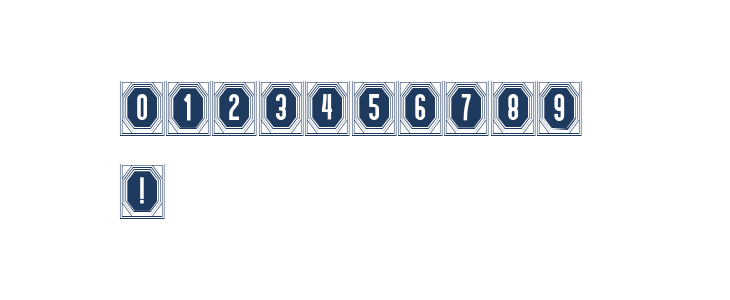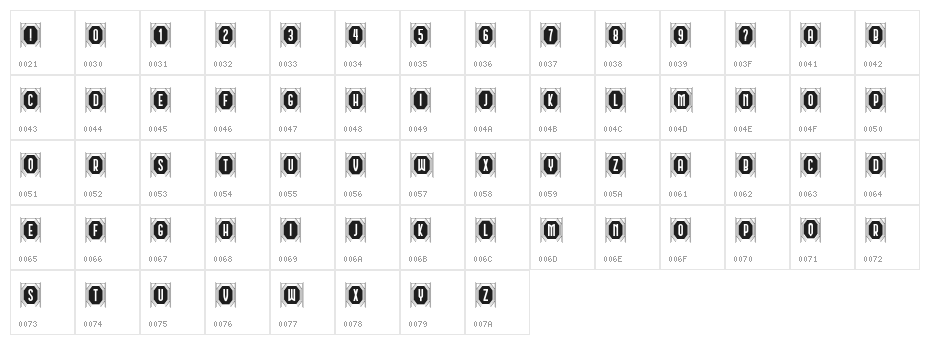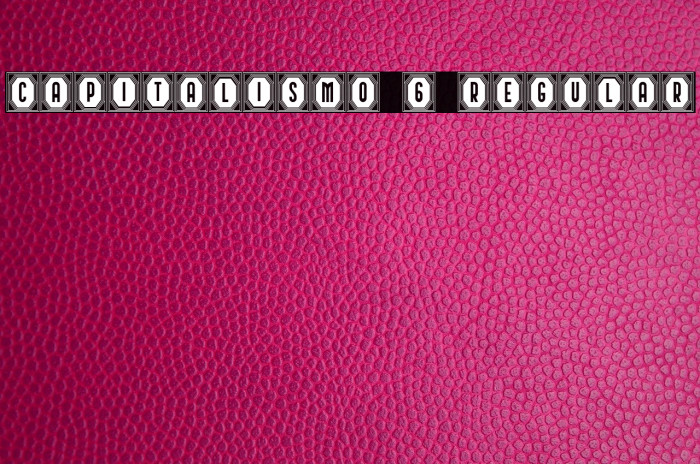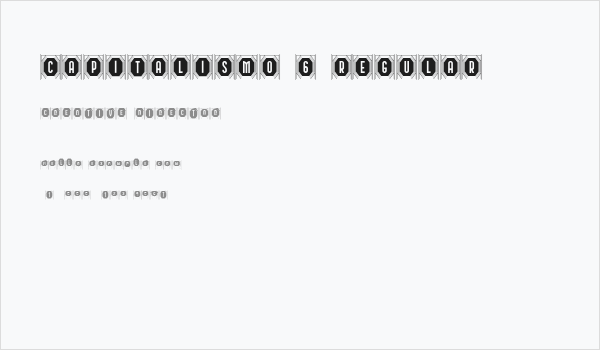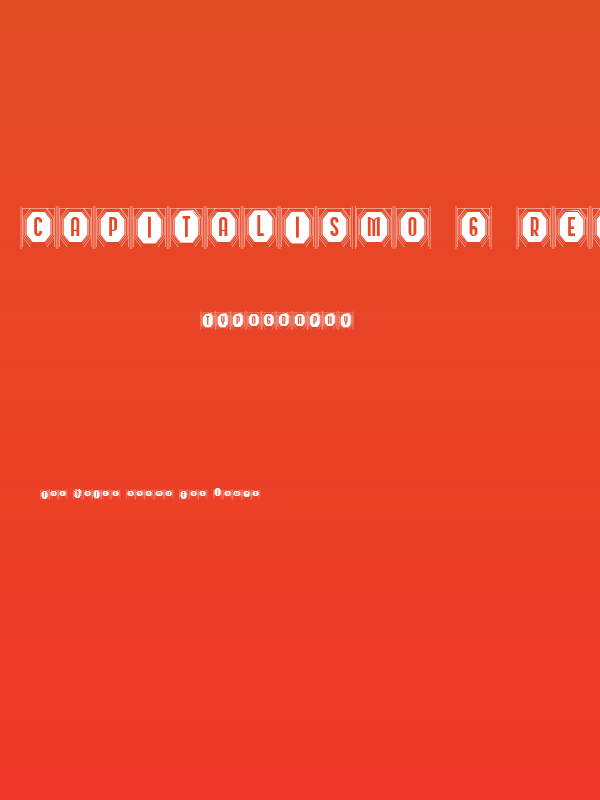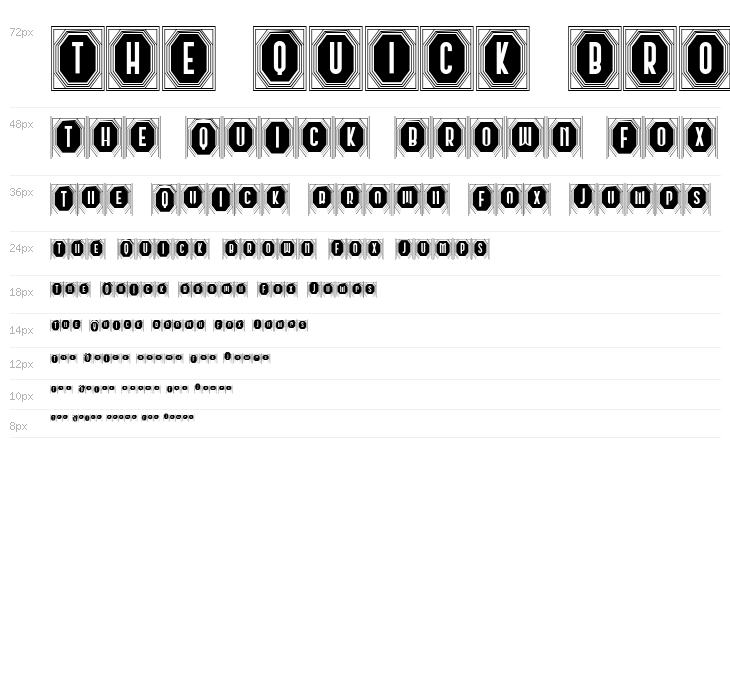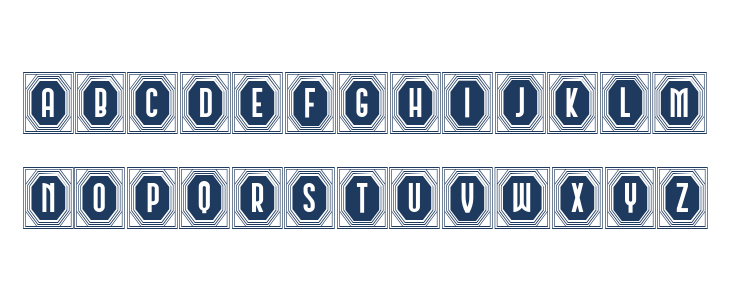
Capitalismo 6 Regular Font
Capitalismo 6 Regular Description
This font features a bold, geometric design with each character enclosed in a decorative octagonal frame. The letters are uppercase and have a strong, impactful presence, making them ideal for attention-grabbing designs. The characters are evenly spaced within their frames, creating a uniform and structured appearance. The font's style is reminiscent of vintage signage or art deco aesthetics, with a modern twist. The numbers and special characters are consistent with the letter design, maintaining the same bold and framed style. This font is perfect for projects that require a strong visual impact and a touch of elegance.
| Proposed Projects | Perfect for posters, signage, branding, and any project requiring a vintage or art deco aesthetic. |